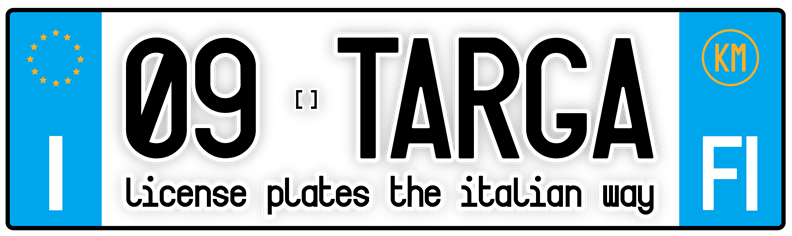
Targa is a highly readable, condensed sans-serif font inspired by Italian vehicle registration plates. It has an handmade version (Targa Hand) that can be used for comic books lettering. For more info please visit our site: http://www.zetafonts.com/collection/17" target="_blank">info and sample |